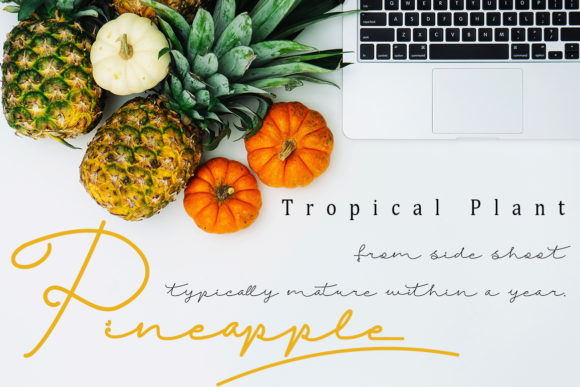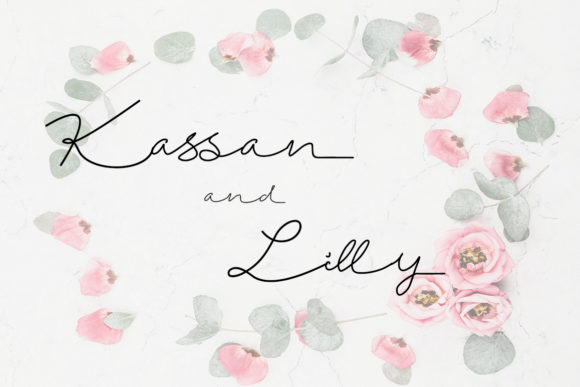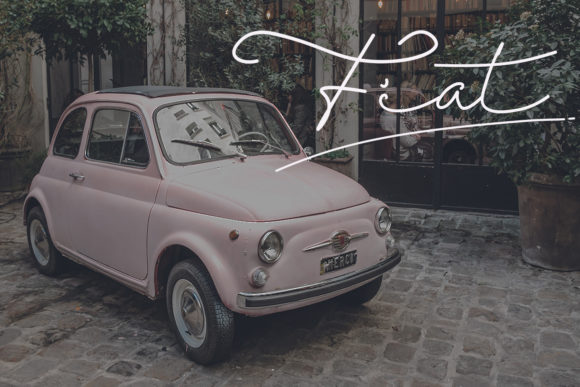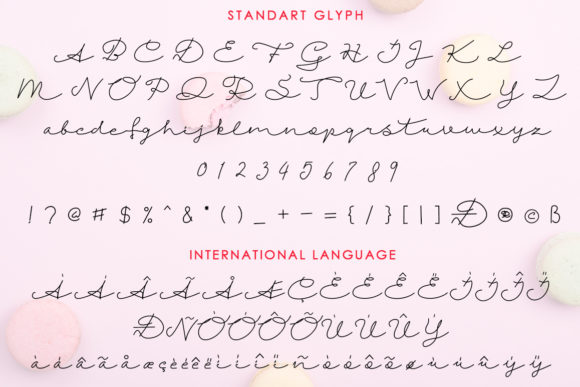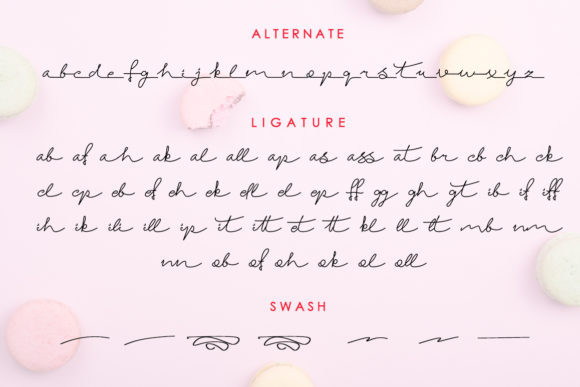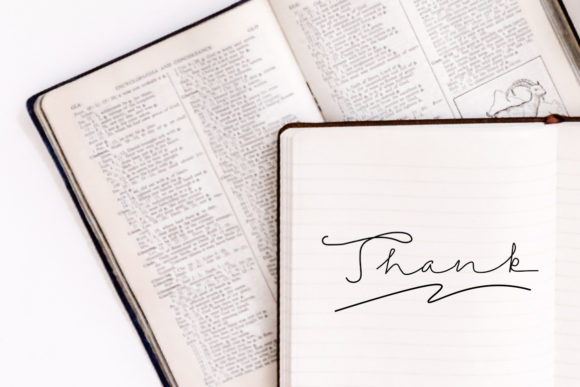
Fruitty Font: Elevate Your DIY Projects with Elegance and Modernity
Are you a designer, crafter, or DIY enthusiast looking for a font that exudes sophistication, elegance, and modernity? Look no further than Fruitty Font! This stunning signature font is perfect for a wide range of creative projects, from handmade crafts to professional branding. In this article, we’ll dive into the world of Fruitty Font, exploring its features, benefits, and uses.
What is Fruitty Font?
Fruitty Font is a beautiful, hand-crafted signature font that embodies the perfect blend of elegance and modernity. Its unique design makes it an excellent choice for anyone looking to add a touch of sophistication to their DIY projects. Whether you’re creating handmade cards, crafting personalized gifts, or designing your own branding materials, Fruitty Font is the perfect companion.
Key Features of Fruitty Font
- Elegant and Modern Design: Fruitty Font boasts a sleek, contemporary design that instantly elevates your projects.
- Versatile: Suitable for a wide range of DIY projects, including handmade crafts, branding, and more.
- High-Quality: Professionally crafted to ensure crisp, clear rendering in various sizes.
Benefits of Using Fruitty Font
So, why choose Fruitty Font for your DIY projects? Here are just a few benefits:
- Stand Out from the Crowd: With Fruitty Font, you can create unique and eye-catching designs that set you apart from others.
- Professional Look and Feel: Add a touch of sophistication to your projects, making them look like they were created by a pro.
- Time-Saving: With its versatility and ease of use, Fruitty Font saves you time and effort in finding the perfect font for your projects.
- Endless Creative Possibilities: From crafting personalized gifts to designing branding materials, Fruitty Font opens up a world of creative possibilities.
Use Cases for Fruitty Font
Fruitty Font is an incredibly versatile font that can be used in a variety of DIY projects, including:
- Handmade Crafts: Add a touch of elegance to your handmade cards, gift tags, and other crafts.
- Branding and Marketing: Use Fruitty Font to create professional-looking branding materials, such as logos, business cards, and brochures.
- DIY Stationery: Create beautiful, custom stationery, including journals, planners, and notebooks.
- Party Decorations: Use Fruitty Font to create stunning party decorations, such as banners, garlands, and invitations.
Tips and Tricks for Using Fruitty Font
To get the most out of Fruitty Font, here are some tips and tricks:
- Experiment with Colors: Try pairing Fruitty Font with different colors to create unique and eye-catching designs.
- Mix and Match Fonts: Combine Fruitty Font with other fonts to create visually appealing and dynamic designs.
- Play with Sizes: Experiment with different font sizes to add emphasis and create visual hierarchy in your designs.
In conclusion, Fruitty Font is a stunning signature font that brings elegance, modernity, and sophistication to your DIY projects. With its versatility, ease of use, and high-quality design, it’s the perfect choice for designers, crafters, and DIY enthusiasts. Whether you’re creating handmade crafts, branding materials, or party decorations, Fruitty Font is sure to elevate your projects to the next level.